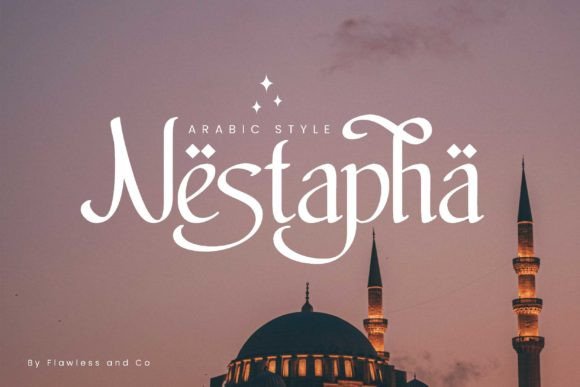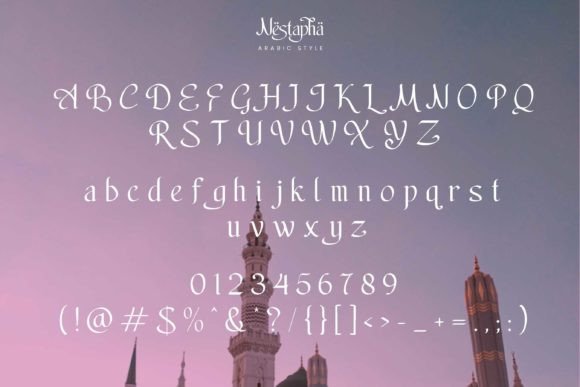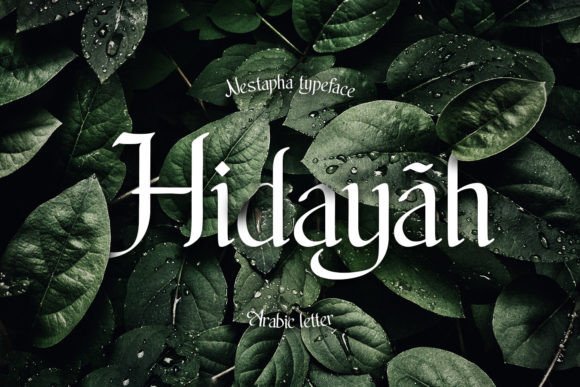
Nestapha Font
Nestapha is an elegant Arabic-style font that is perfect for a variety of design applications, for example, those related to Ramadan. With its flowing curves and distinctive letterforms, Nestapha adds a touch of sophistication to any project, while also conveying a sense of cultural richness and spiritual depth.